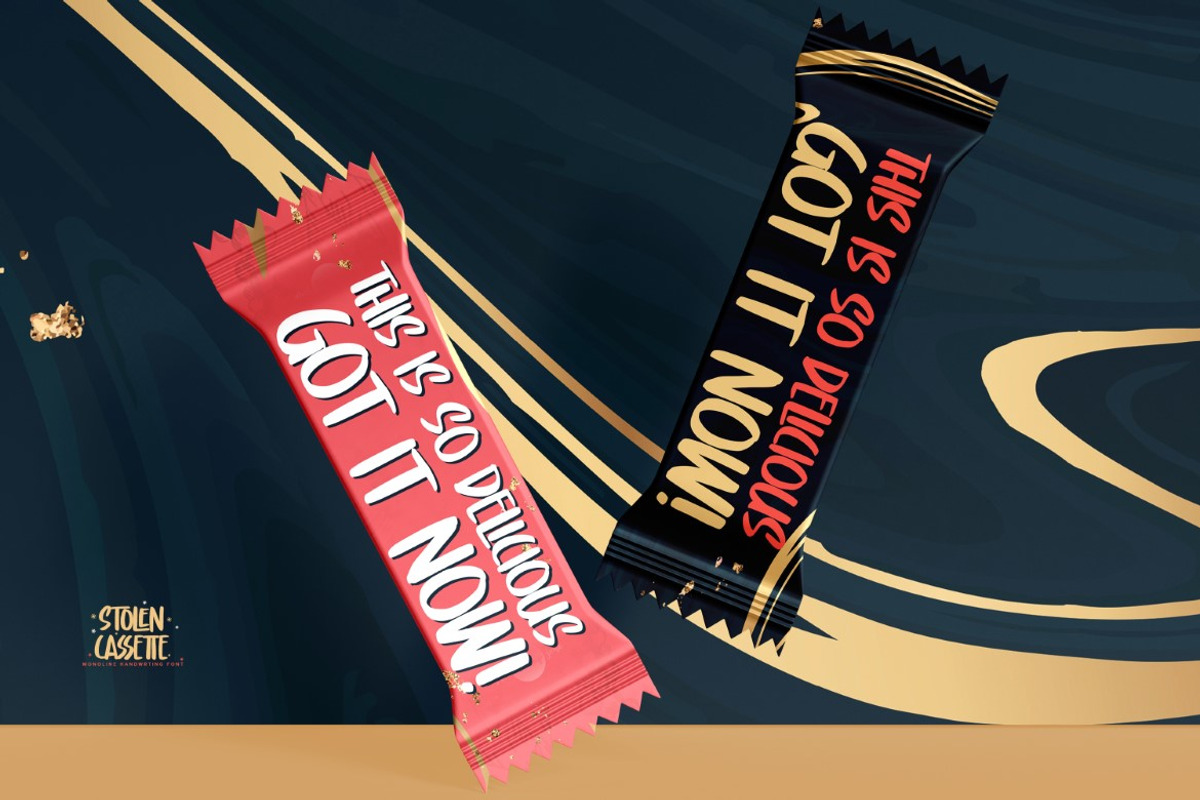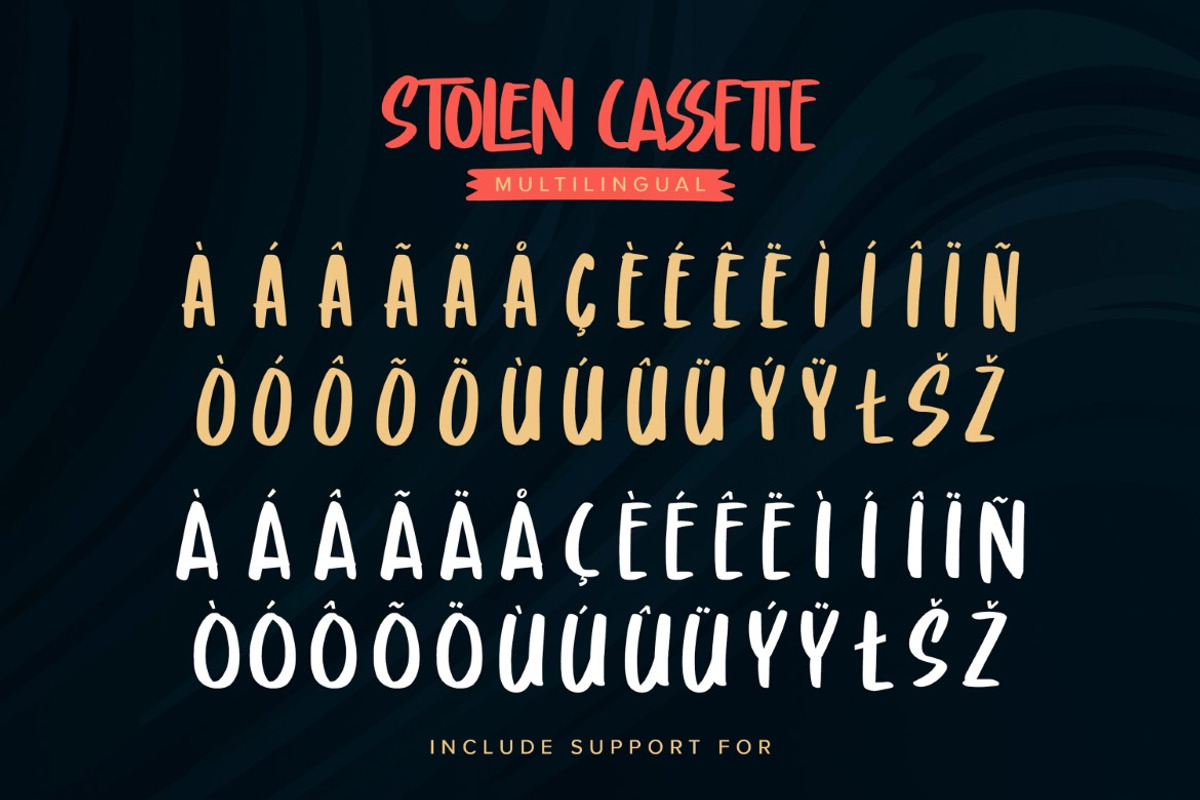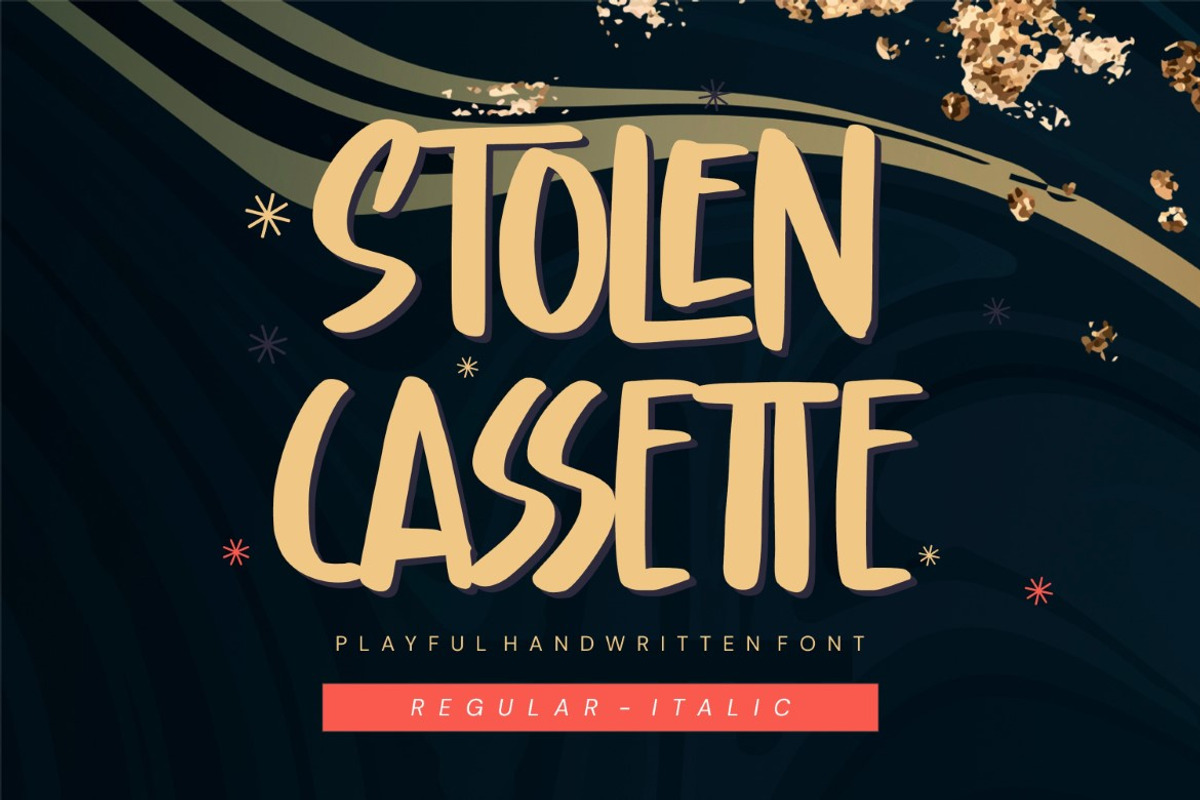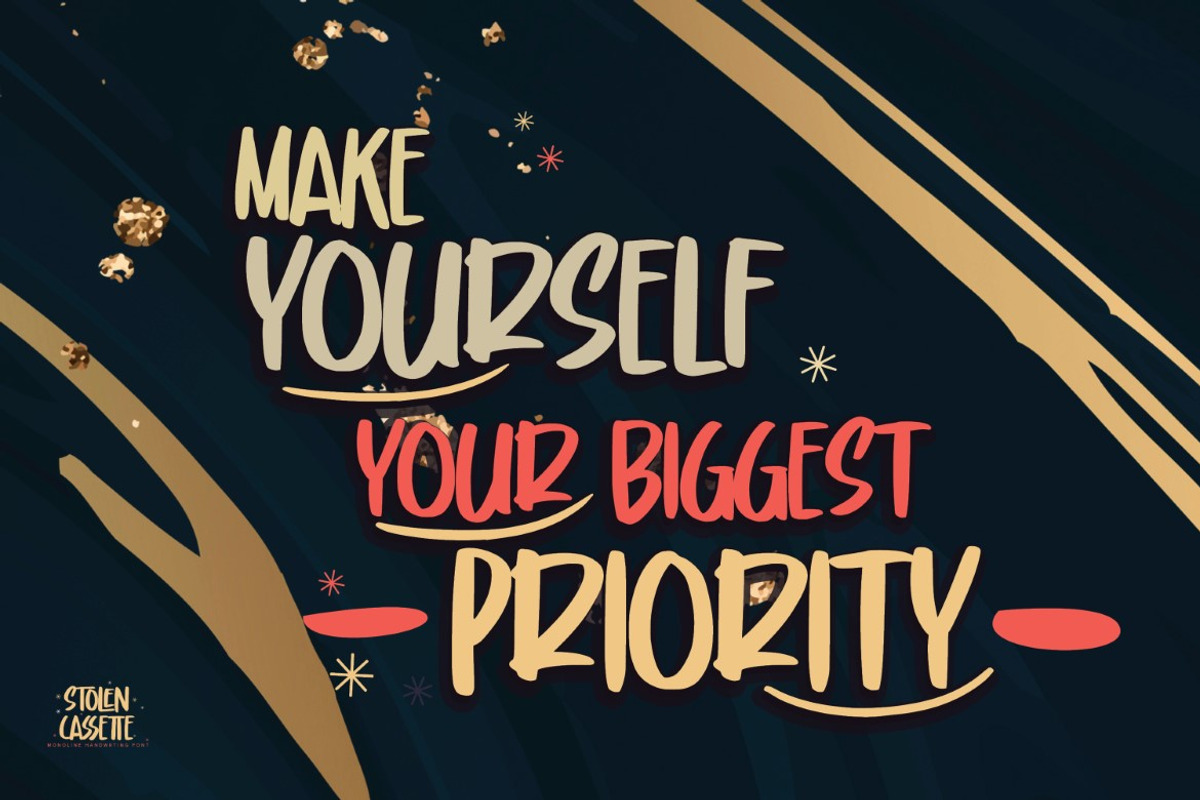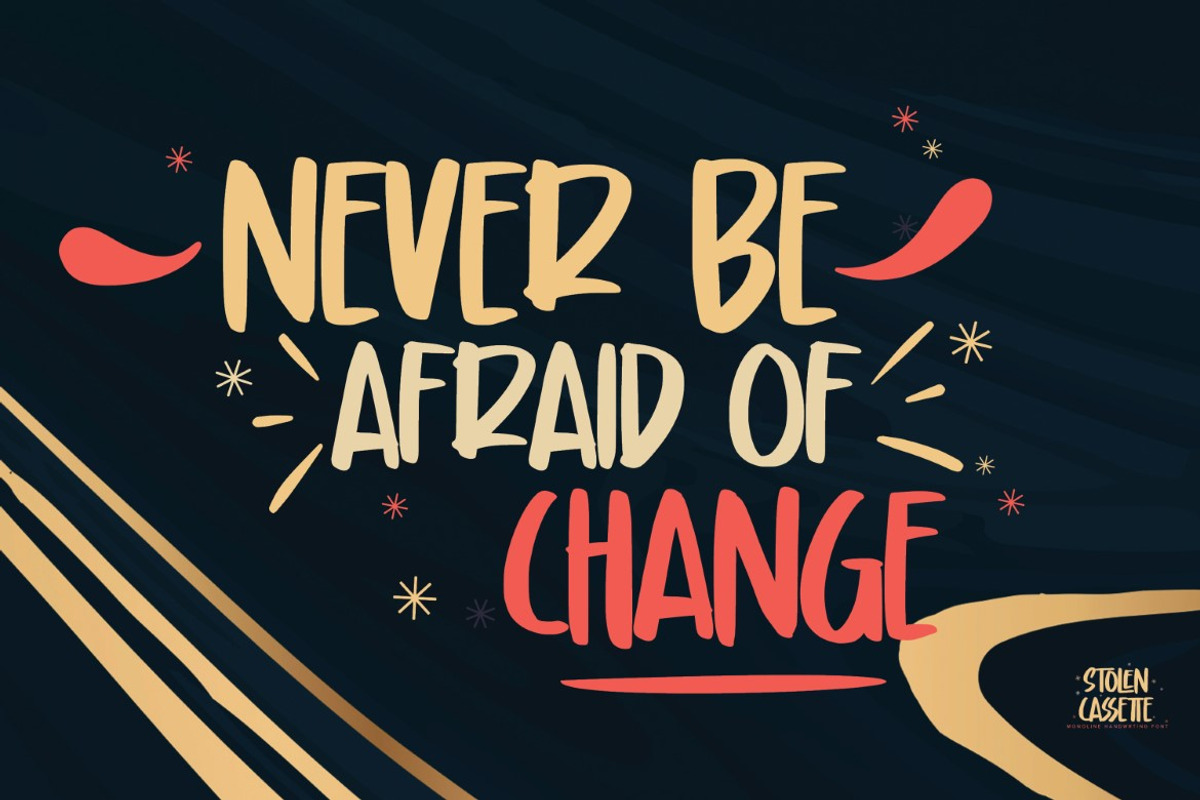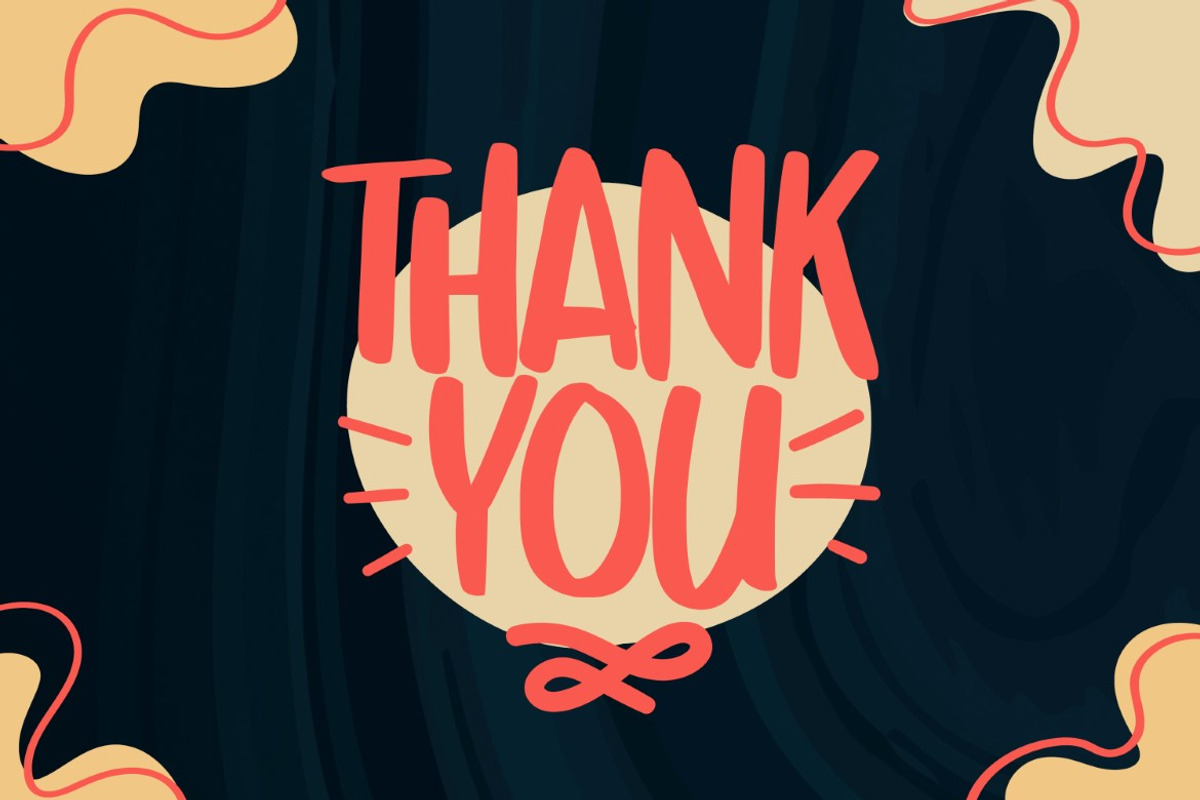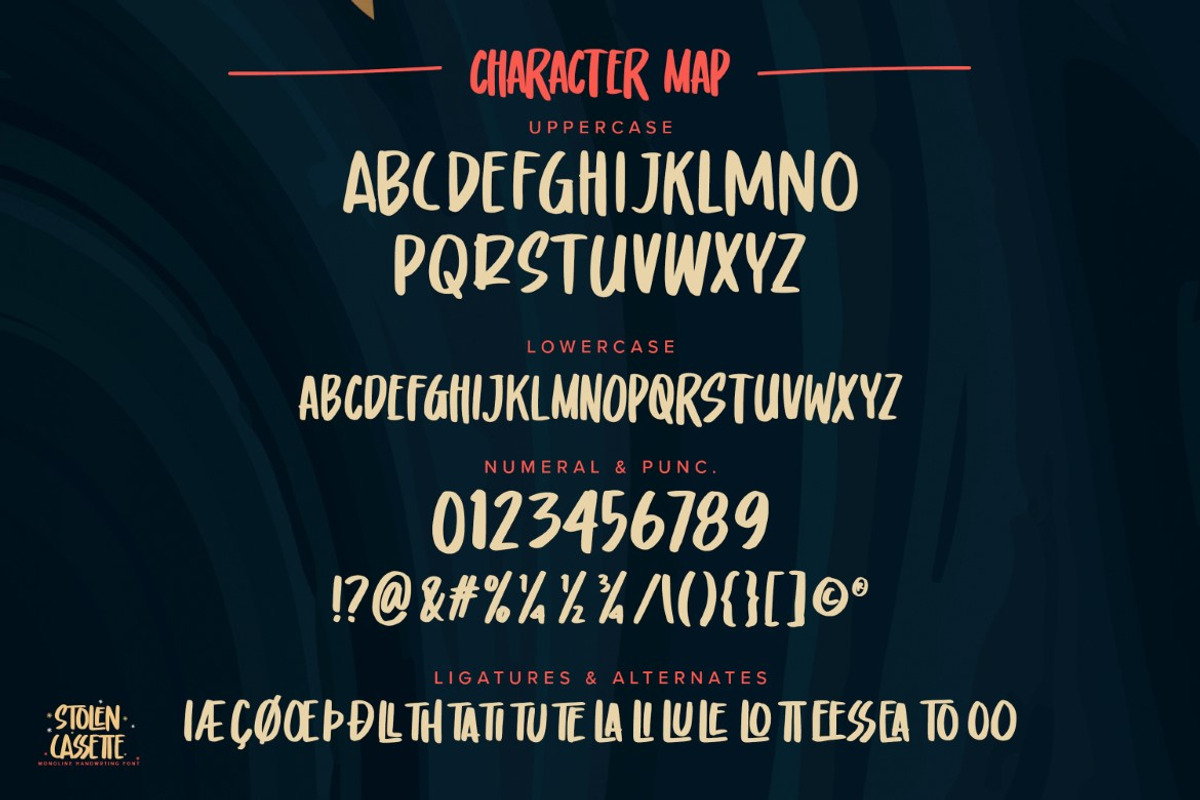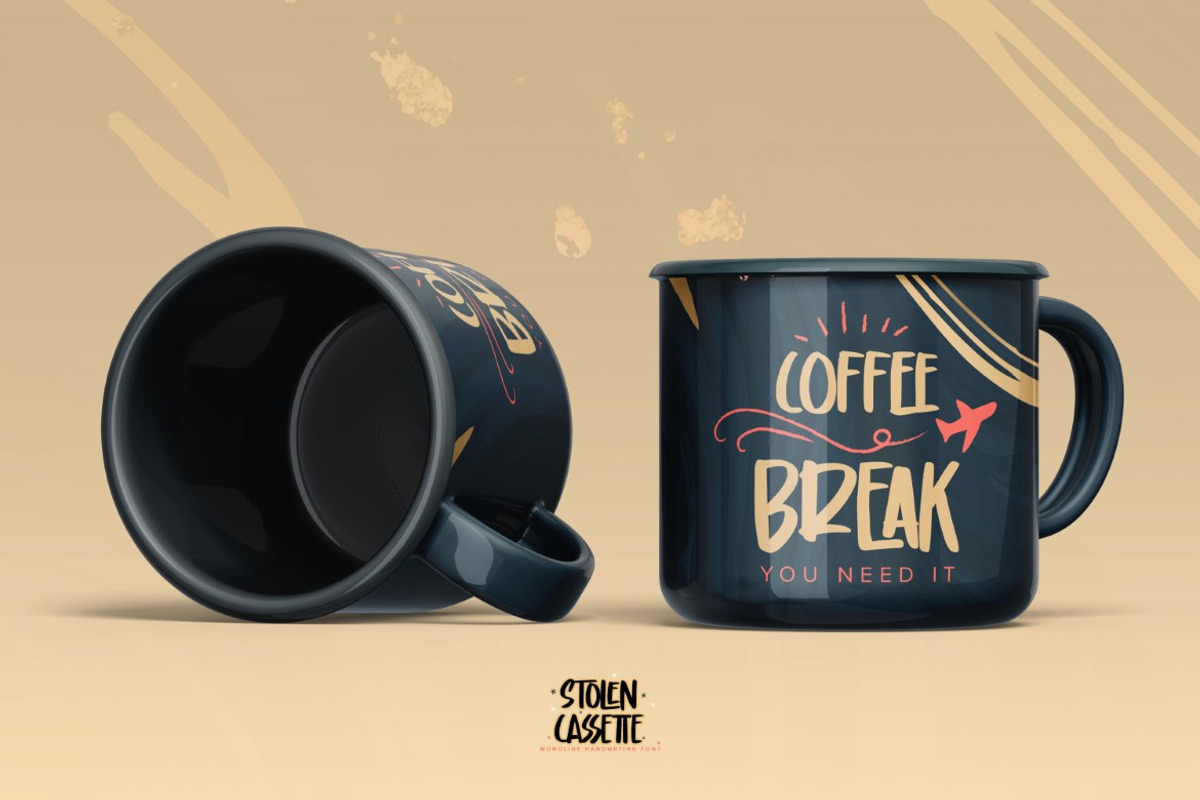
Stolen Cassette - Playful Display
Stolen Cassette is a Playful Display Font that will make your designs look modern, unique and fun. It’s perfect for labels, quotes, posters, DIY projects, branding, packaging, greeting cards, websites, photography overlays, signs, window art, scrapbooking, tags and so much more!